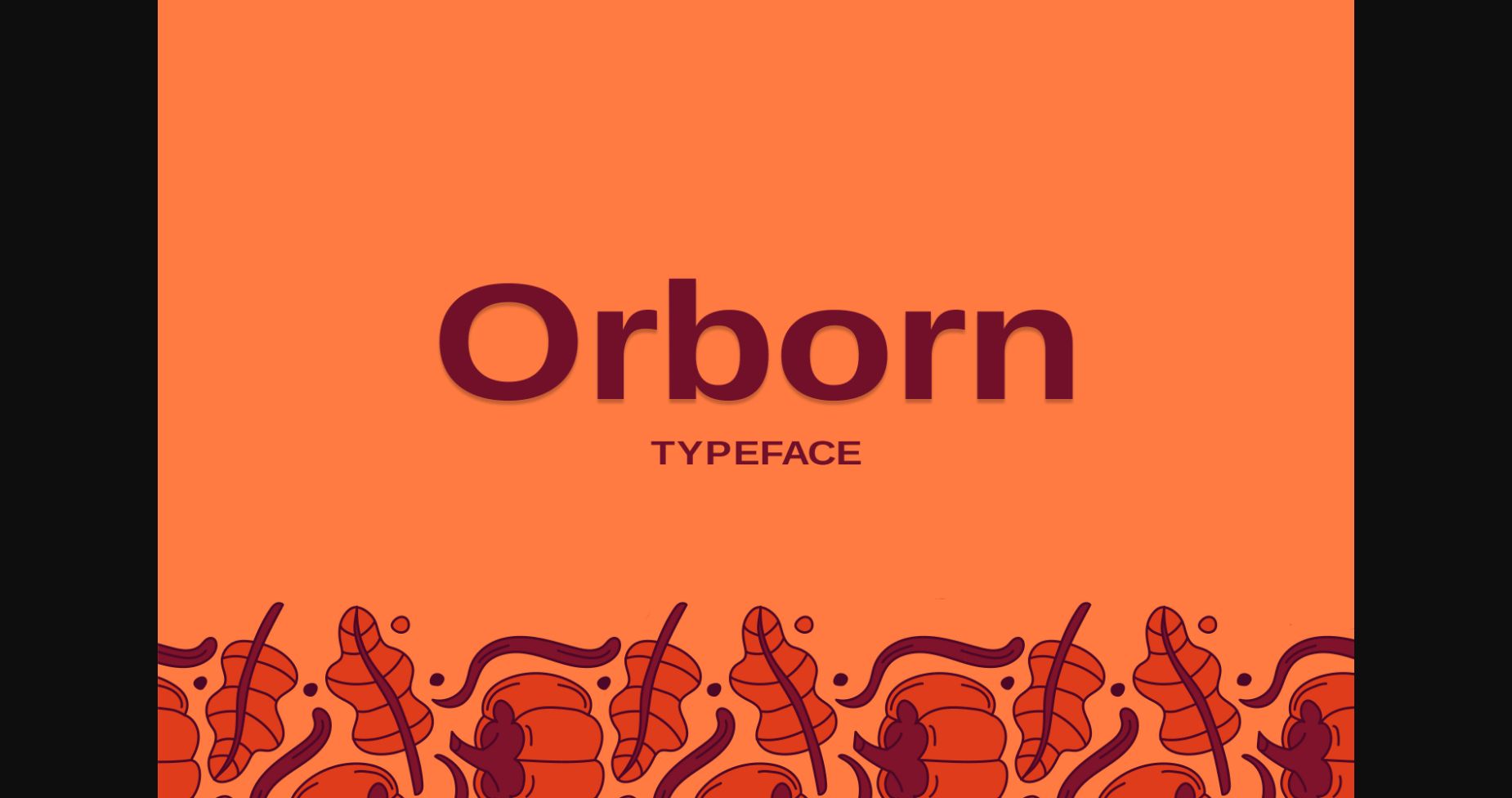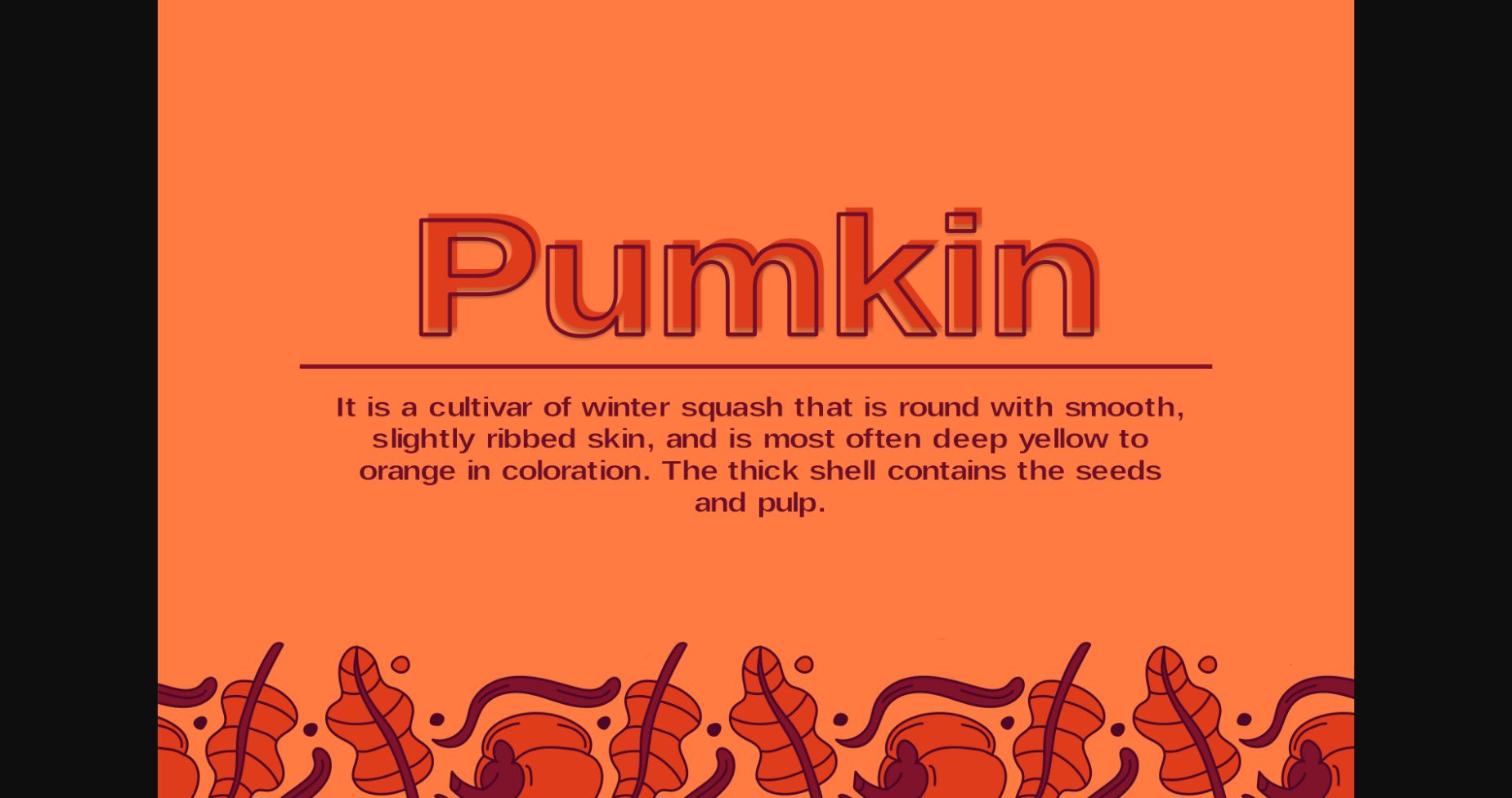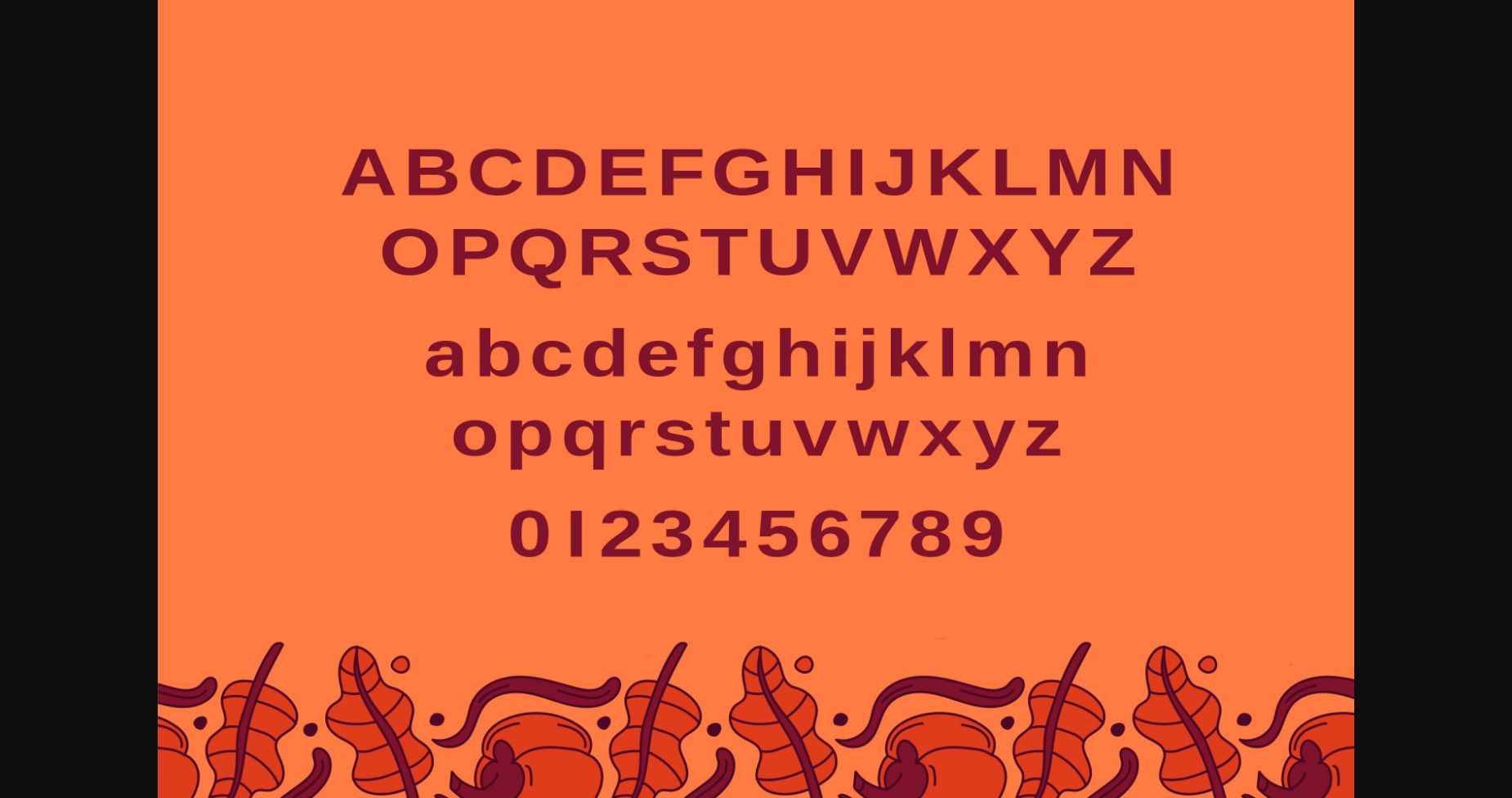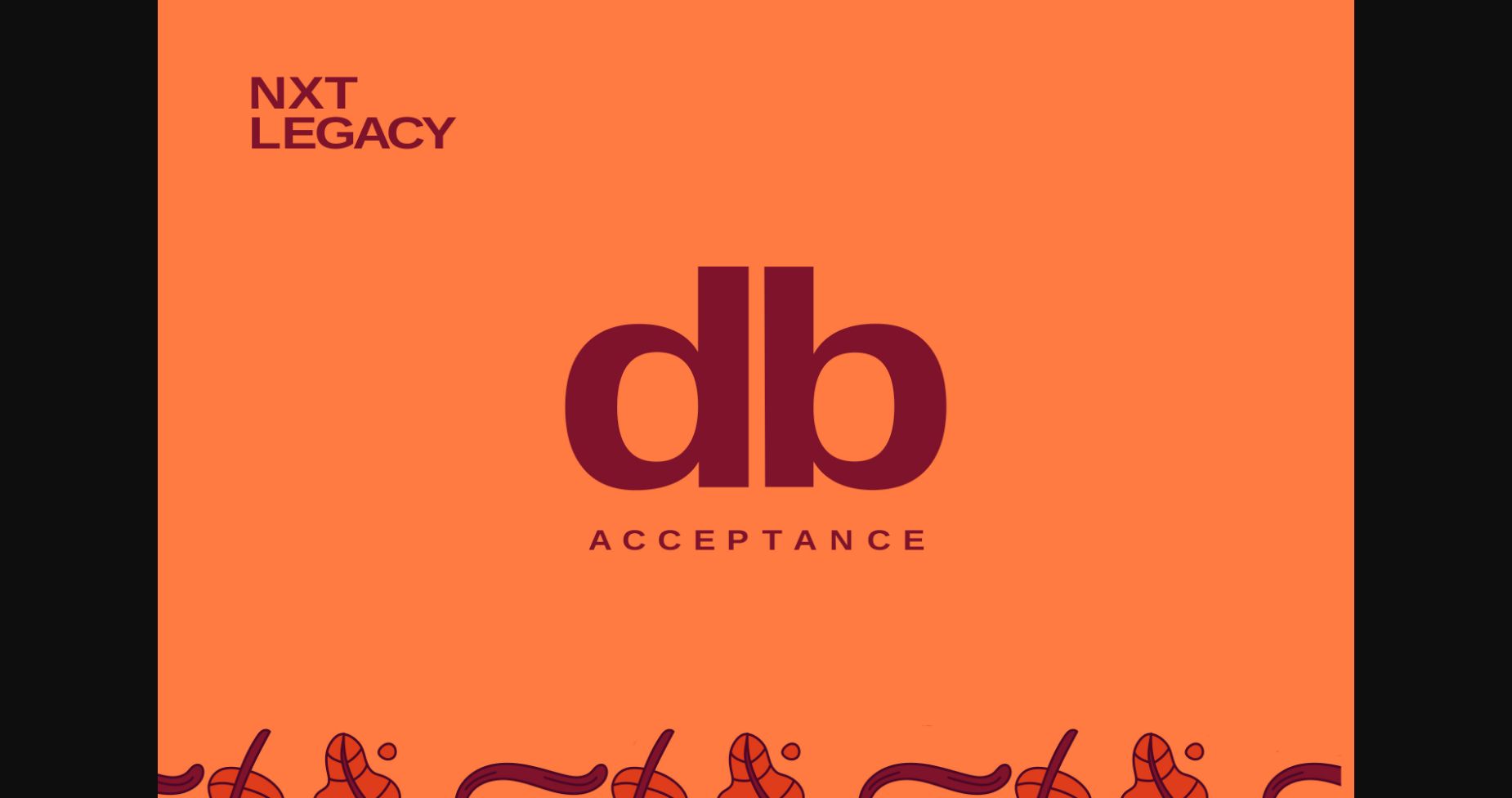
Orborn Font
About Orborn Font
Orborn is a modern and minimal sans serif font, perfect for projects that need a unique and clean look! Its sleek characters are guaranteed to make each of your creations stand out and look exquisite!